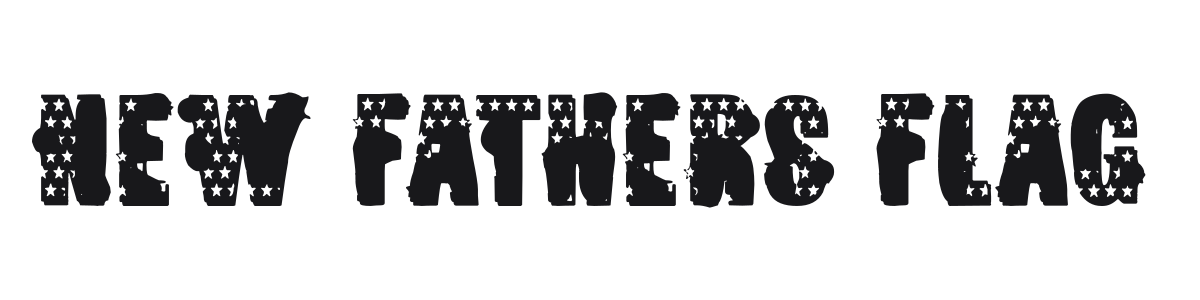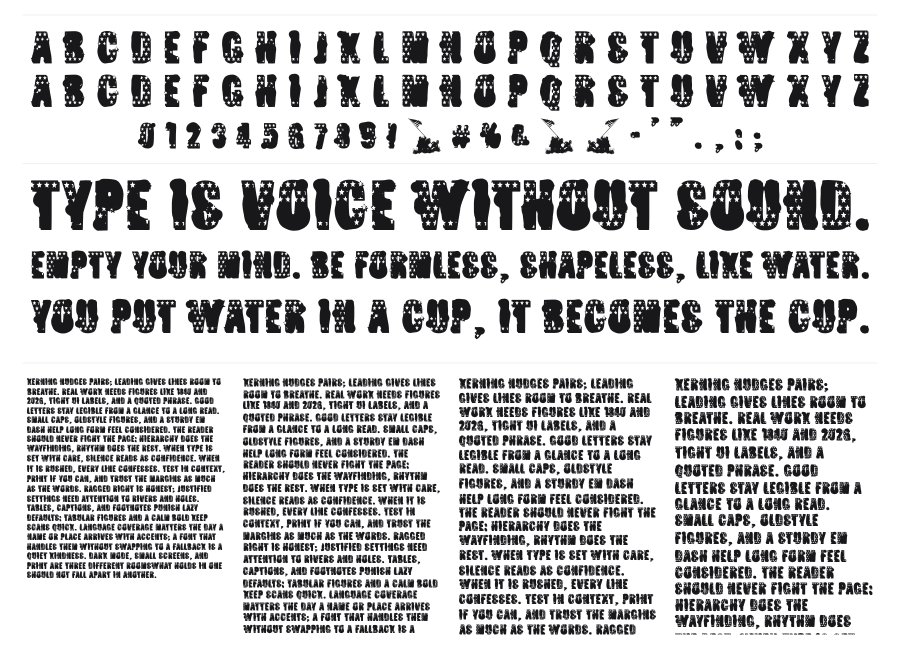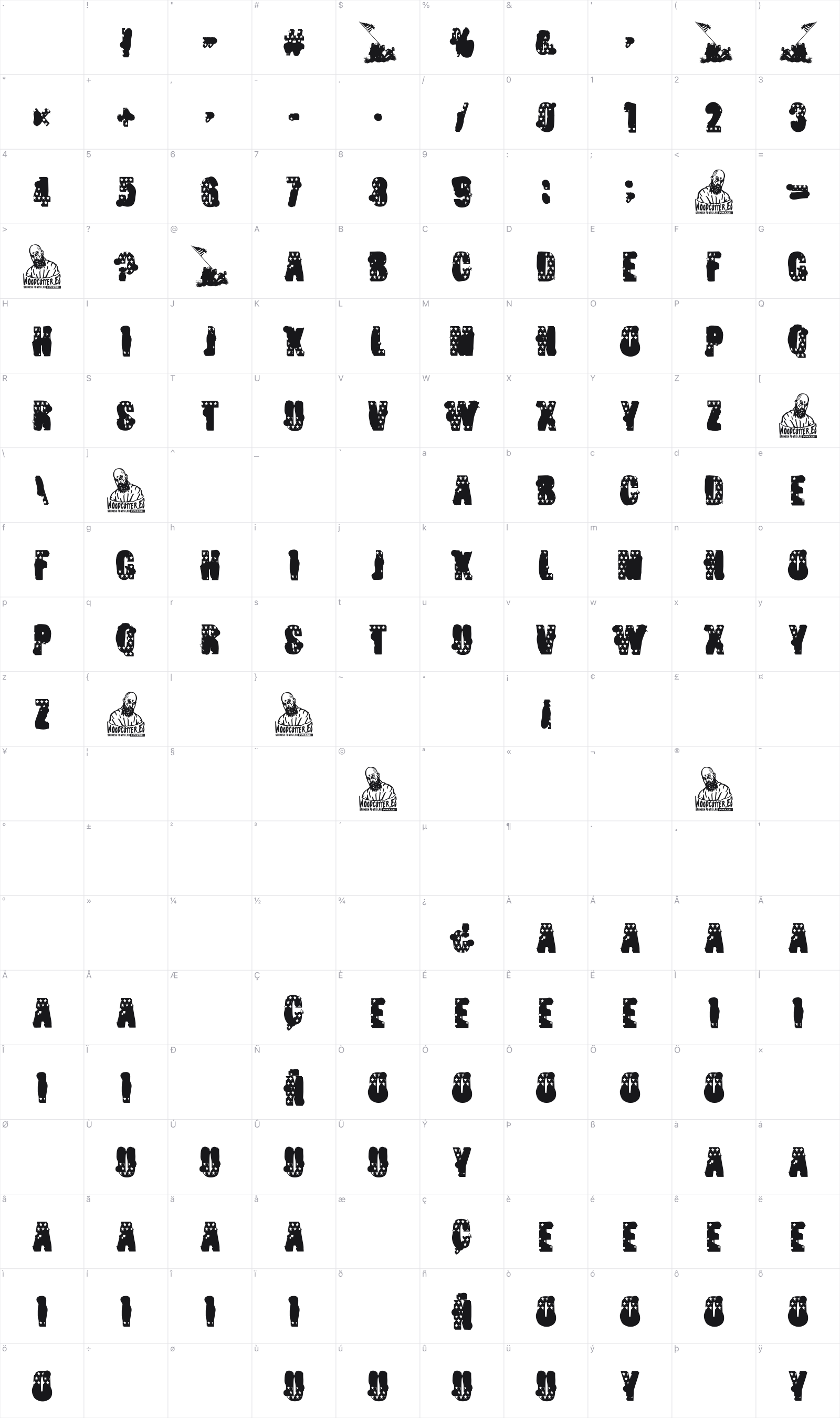
New Fathers Flag
New Fathers Flag is a heavy distressed display font by Woodcutter, with letters filled by a repeating star pattern that channels the American flag's star field. The worn, eroded edges add a gritty, lived-in quality that keeps it from feeling like mere novelty. It commands attention at large sizes on posters, album art, and patriotic or Americana-themed branding.